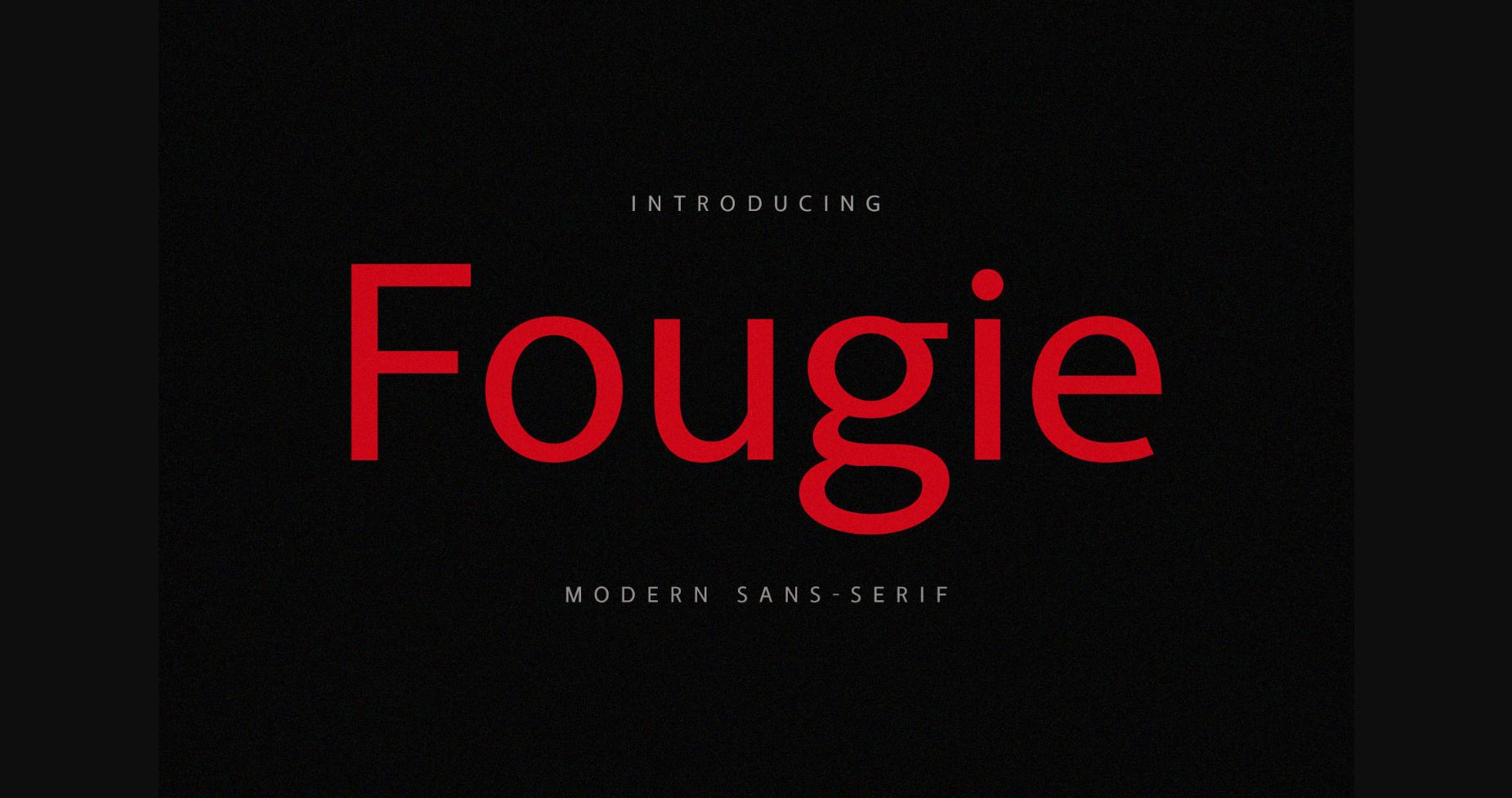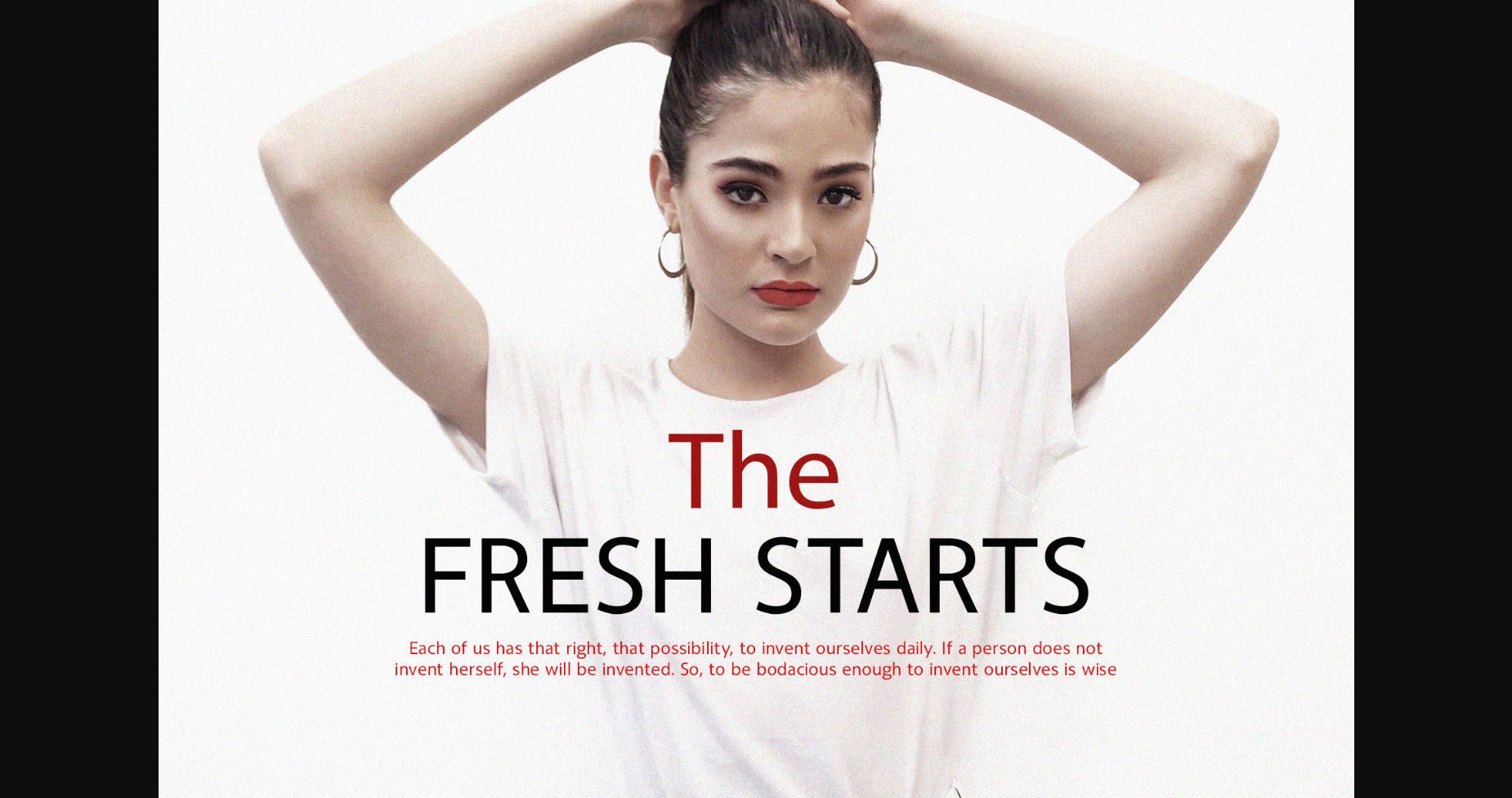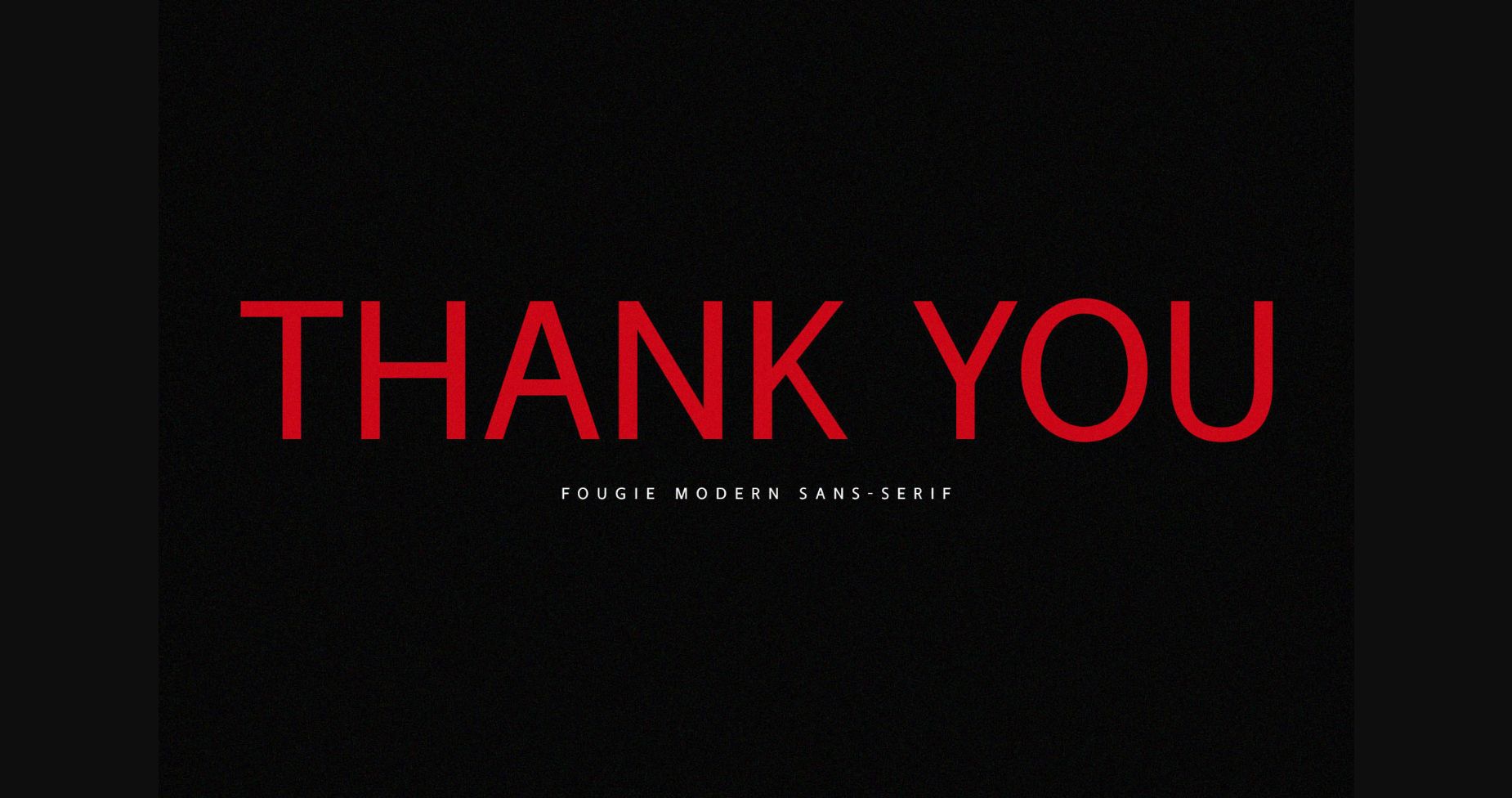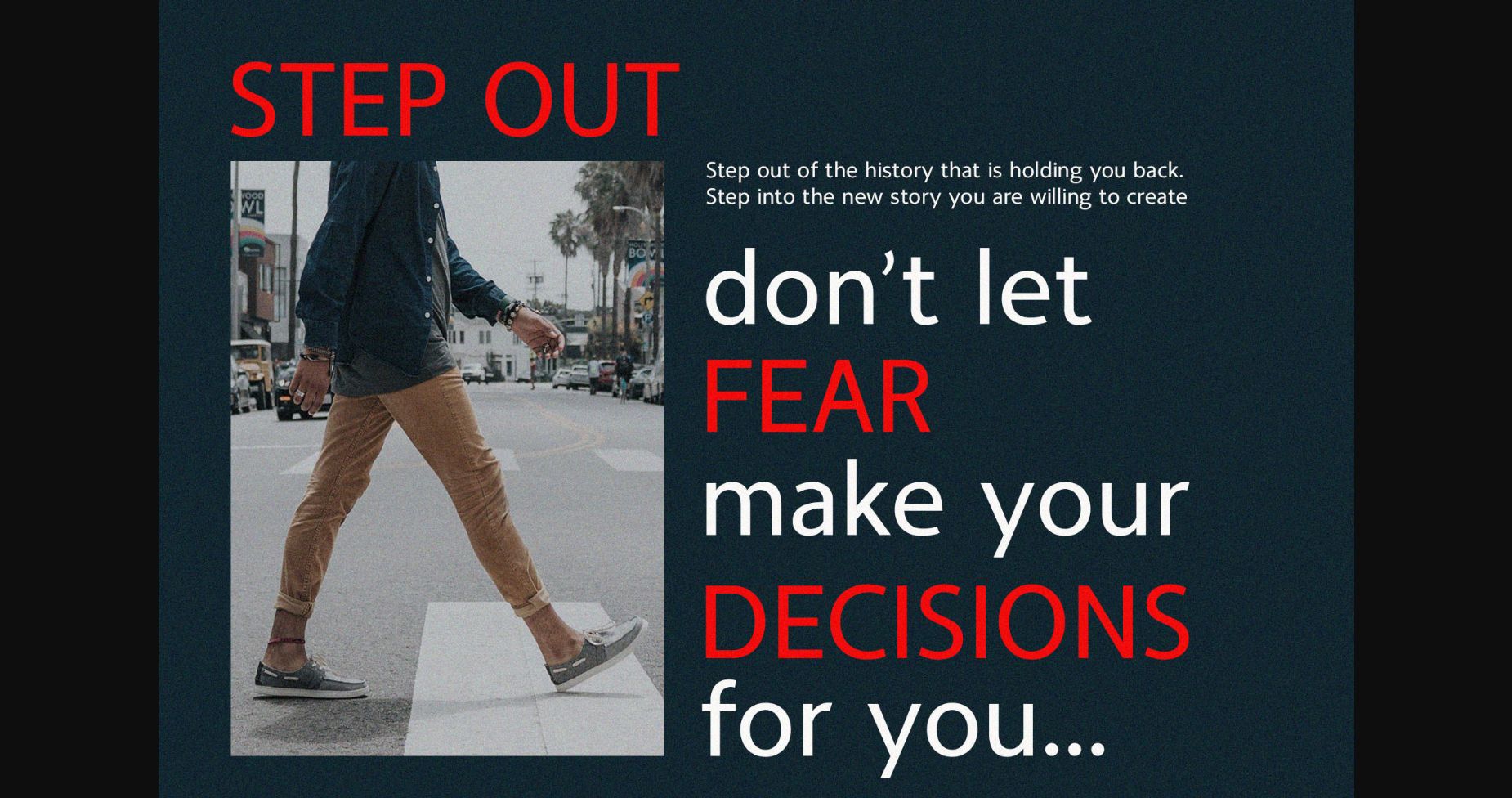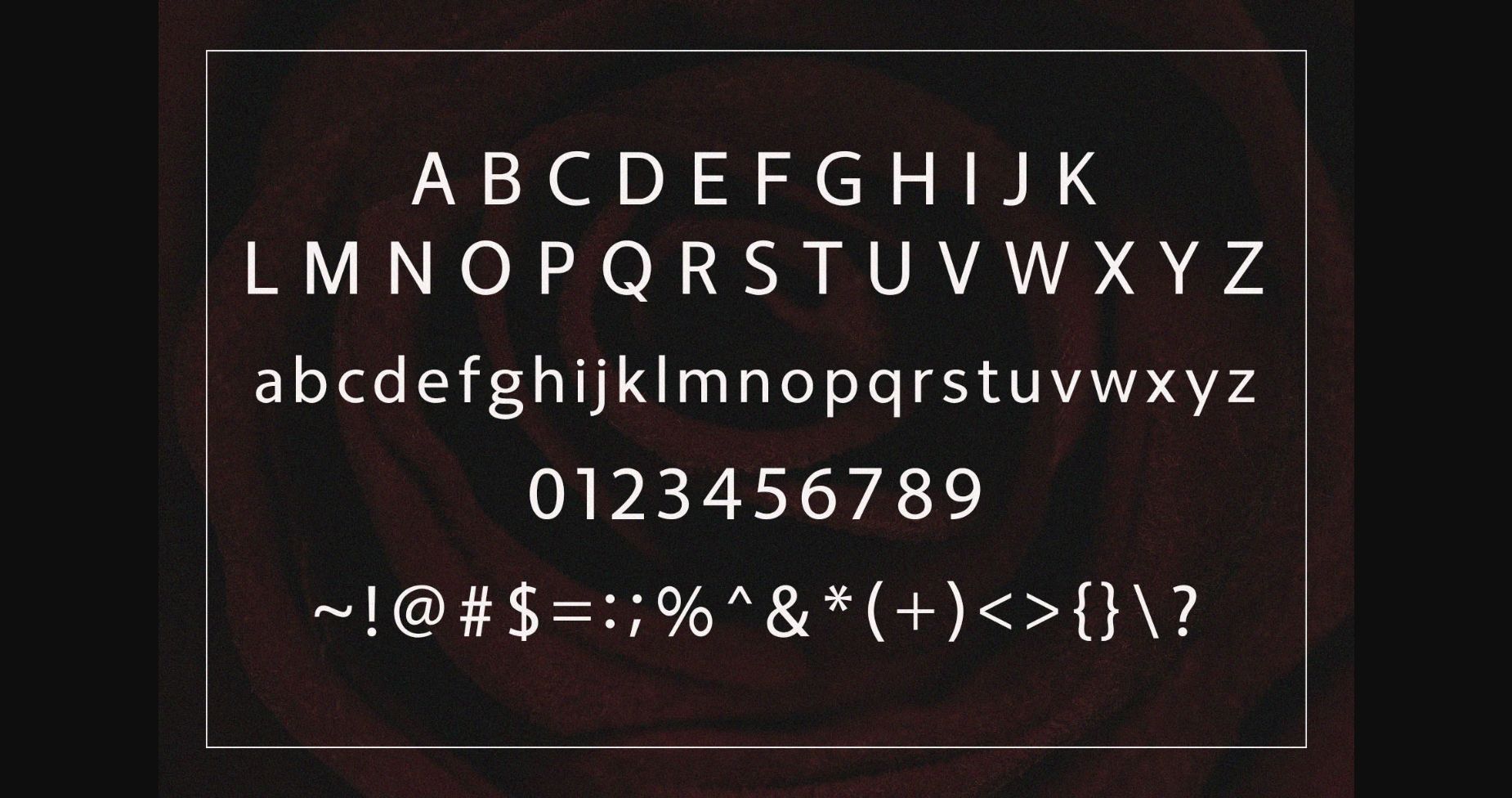
HomeSans Serif FontsFougie Font Sans Serif Fonts Fougie Font FacebookTwitterPinterestWhatsApp 1 of 7 ... Fougie Font Poster 2... Fougie Font Poster 3... Fougie Font Poster 4... Fougie Font Poster 5... Fougie Font Poster 6... Fougie Font Poster 7... About Fougie Font Fougie is a classy and modern sans serif font perfect for websites, logos, magazines, social media posts, and many more. If you need a touch of elegance for your designs, this font is made for you! DOWNLOAD NOW People also explored Kelik Font Currain Font Something Font Dolor Amet Font Qauthor Font Vanity Font Clementine Font Wanitha Font Brook Font 189 0 TagsFougieFougie Font Previous articleCandle FontNext articleFriska Font LEAVE A REPLY Cancel reply Comment: Please enter your comment! Name:* Please enter your name here Email:* You have entered an incorrect email address! Please enter your email address here Website: Save my name, email, and website in this browser for the next time I comment. Personal Use Free ABC Personal Use Free Read more about this font Veronica Personal Use Free Read more about this font Lixdu Personal Use Free Read more about this font Hello Sister Personal Use Free Read more about this font BLOG Free Fonts Risk: Why Free Fonts Can Be Dangerous for Designers Free Fonts Risk: Why Free Fonts Can Be Dangerous for Designers Using free fonts is a common practice in web and graphic design. However, the... Top 7 Google Fonts Alternatives for Faster and Privacy-Friendly Web Design (2025) Using Fonts in Digital Marketing: Tips to Strengthen Your Brand Identity Transform Your Website: Elevate Your Typography with 7 Best Web Font Generators